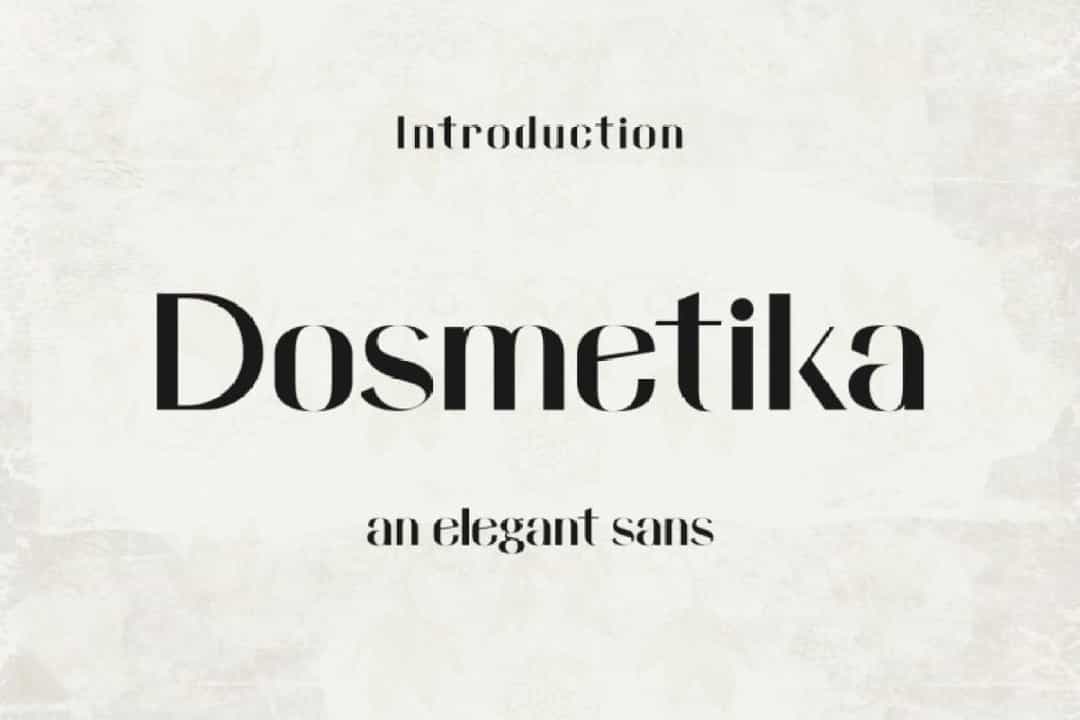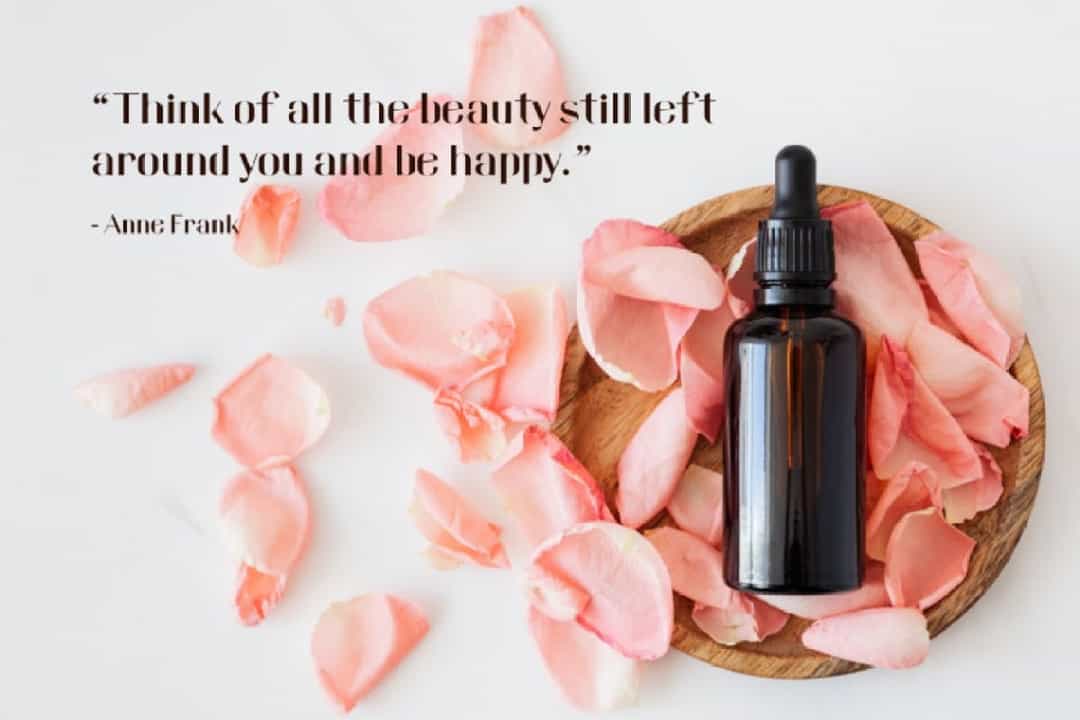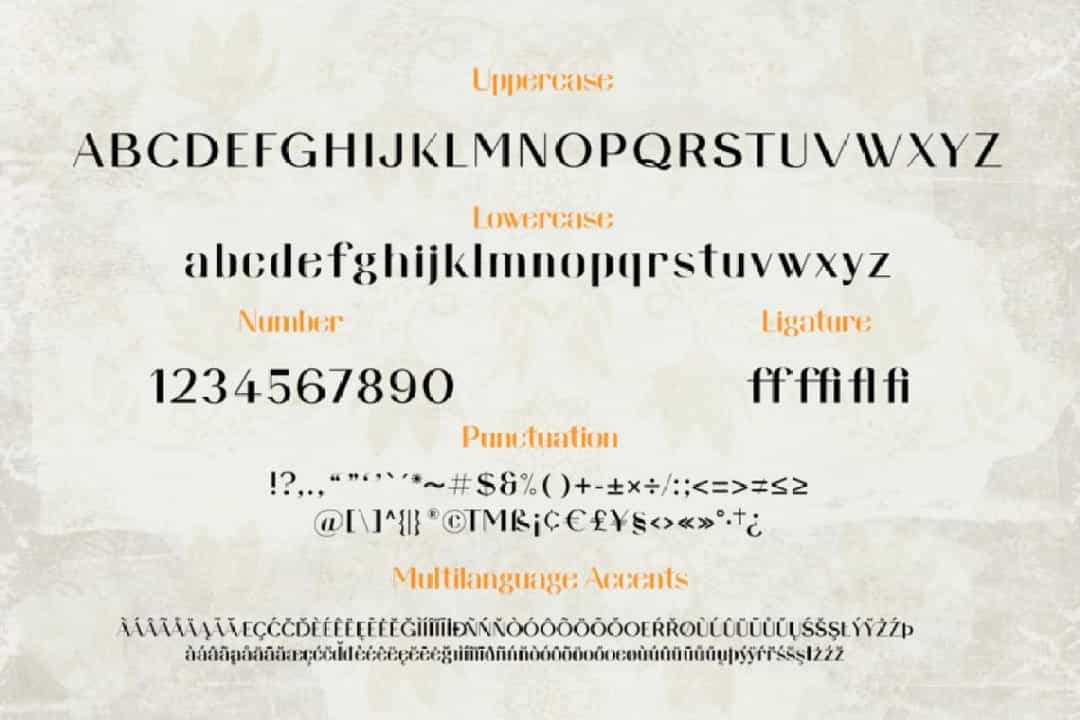
Domestika is an elegant sans serif font with clean lines and a good level of contrast between the thick and thin lines. Applicable in the creation of logo, brands and other headings for websites.